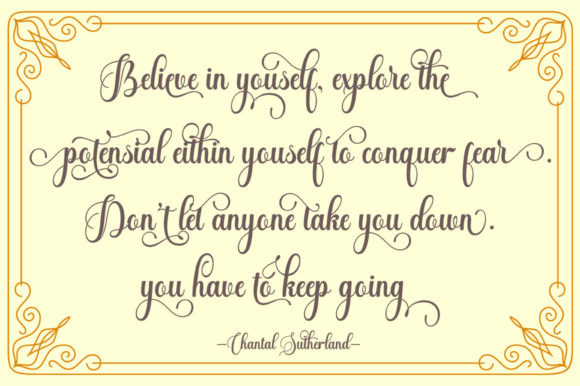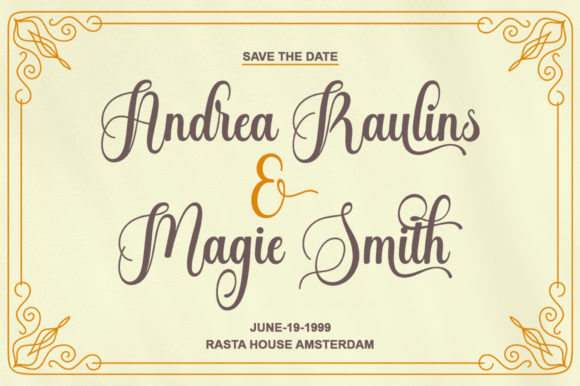
Aestetic Font
db-ku.com - Script & Handwritten -- Aestetic is a dazzling and highly detailed script font. Whatever the topic, this font will be a wonderful asset to your font library, as it has the potential to enhance any creation.